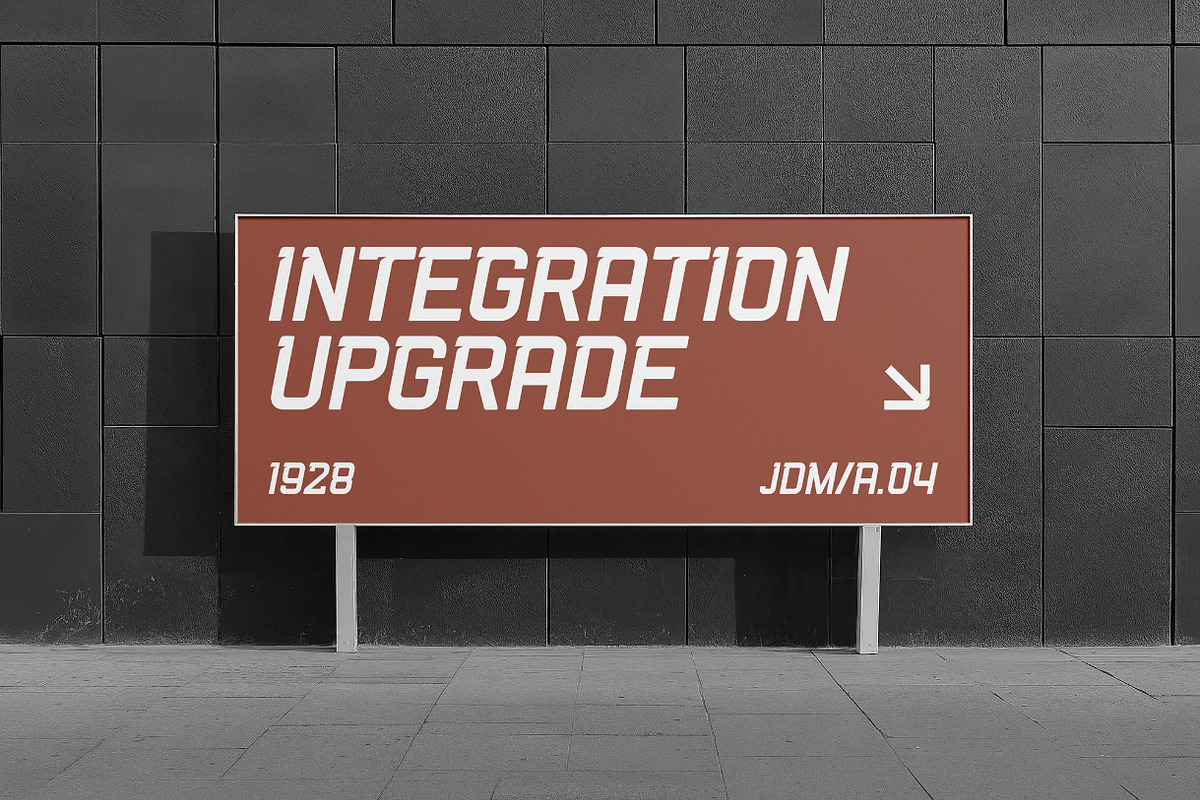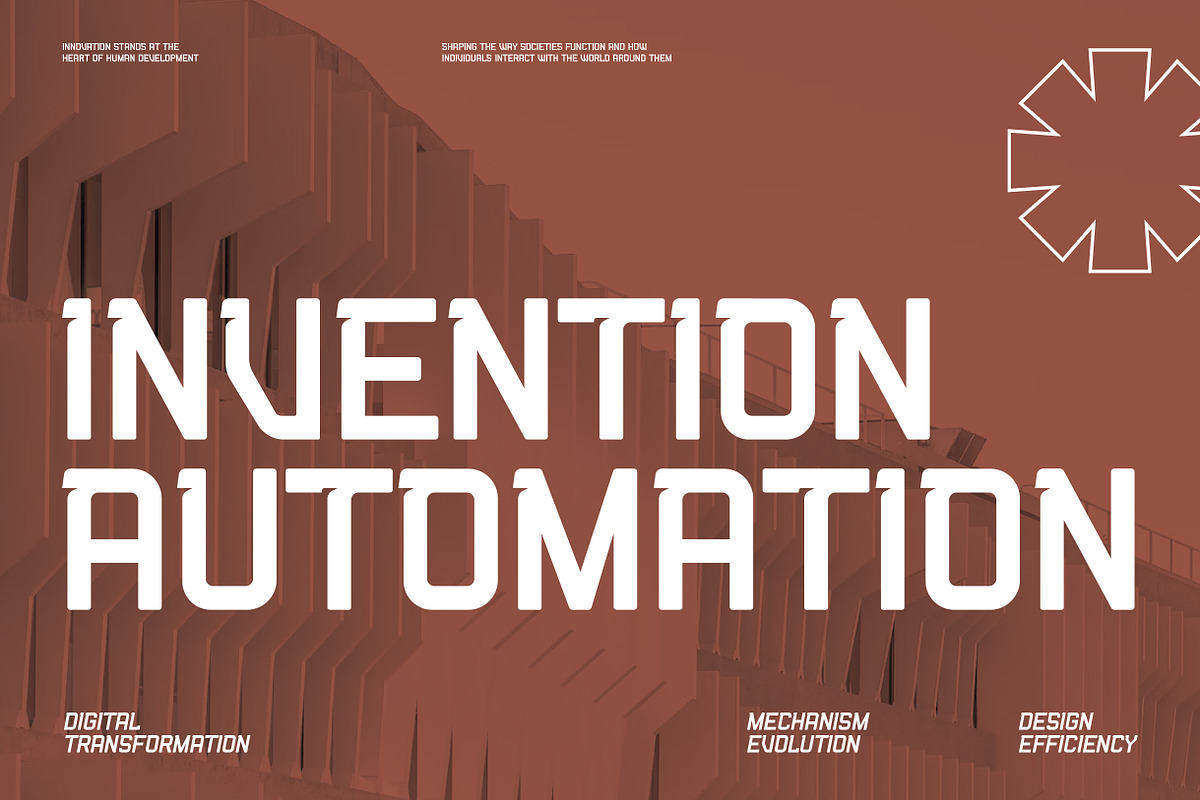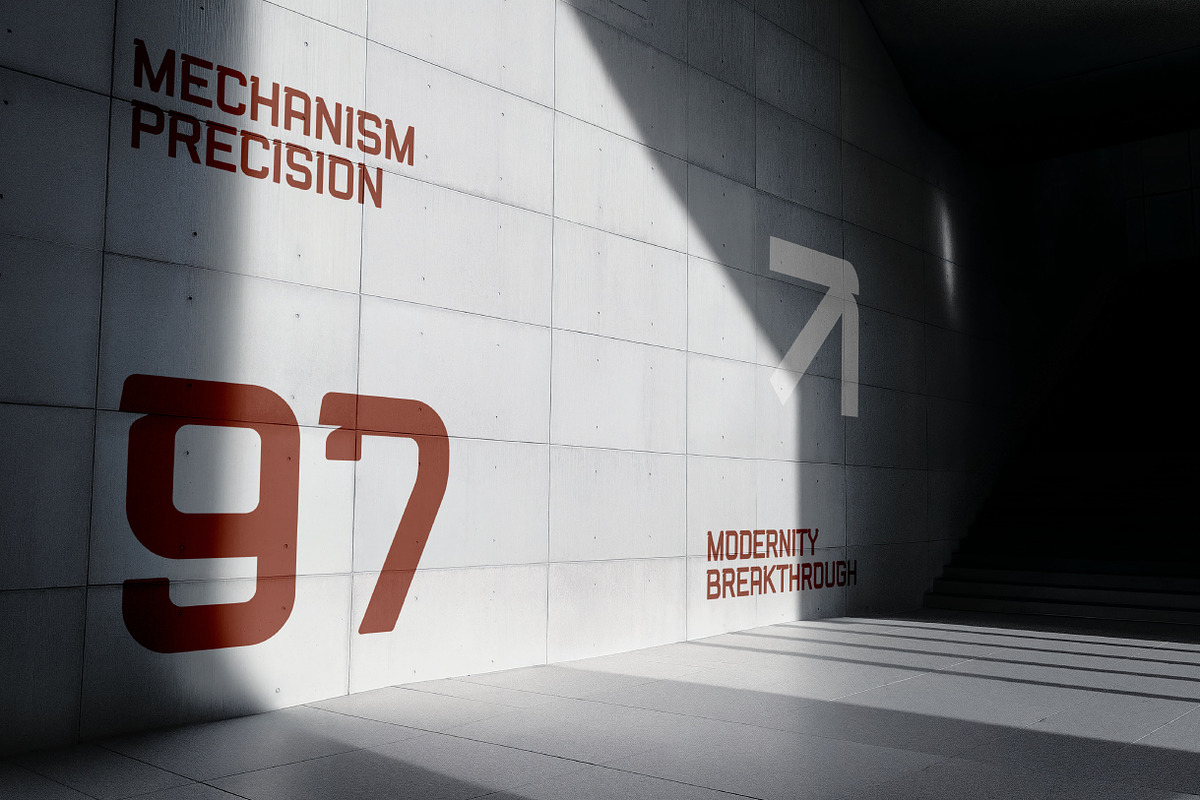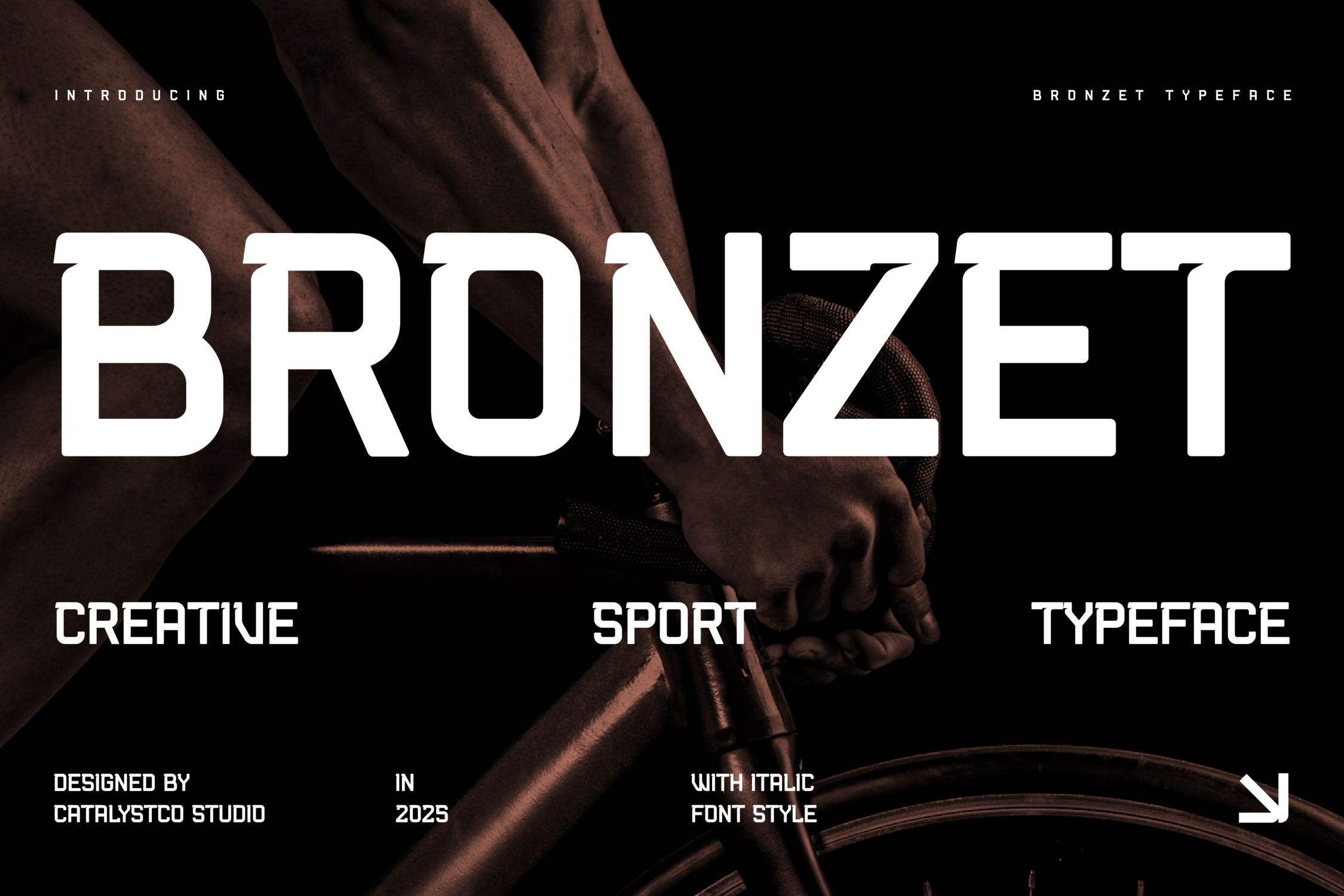
Bronzet Creative Sport Typeface Font
Bronzet is a bold and versatile display font crafted for athletic and creative branding with a modern edge. Featuring strong geometric lines, angled cuts, and a slightly futuristic aesthetic, this typeface delivers power and presence in every letterform. The family includes both Regular and Italic styles, full uppercase alphabet, numerals, punctuation, and special glyphs for design flexibility.
Bronzet is perfect for projects that need a bold visual statement with athletic energy and contemporary style. Its geometric yet refined shapes work beautifully in sports branding, team logos, apparel design, poster titles, esports graphics, fitness marketing, and dynamic digital content. Bronzet is also great for tech brands and editorial layouts that demand modern strength and clarity.
- Bold geometric structure with strong horizontal and vertical emphasis
- Angled cuts and stylized terminals for a modern, sporty aesthetic
- Clean, high-impact letterforms optimized for display use
- Subtle italic option adds motion and flexibility
- Sharp legibility and consistent rhythm across character set
- Compact spacing for tight, energetic visual presence
- Sports branding and dynamic logo design
- Techwear, esports, and streetwear label design
- Futuristic UI/UX dashboards and digital interfaces
- Poster layouts and bold editorial headlines
- Event promotions, race banners, and energetic packaging design
Fuel your visuals with bold energy, Bronzet bring power to every word